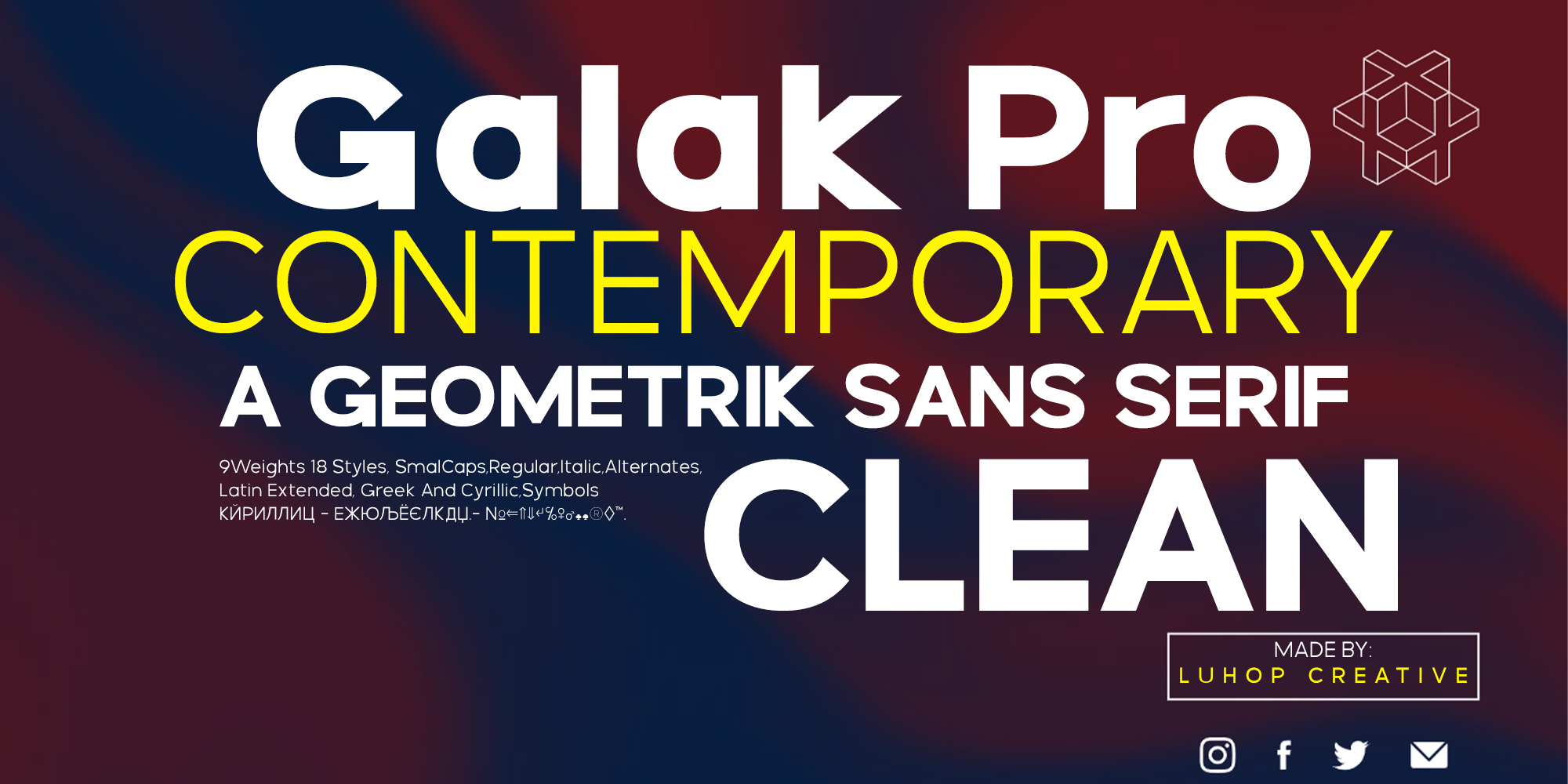
Galak Pro Font is ideal for professional corporate presentations, executive business communications, sophisticated financial reports, premium consulting materials, authoritative legal documents, high-end technology branding, influential leadership graphics, and distinguished institutional displays. Its professional authority makes it perfect for projects requiring corporate credibility and executive presence.
What makes Galak Pro Font exciting is its exceptional ability to command professional respect through meticulously engineered letterforms that embody corporate excellence and executive authority with uncompromising precision. The professional construction features refined geometry with business-grade reliability that captures the essence of corporate leadership and institutional trust. This typeface embodies professional mastery and executive confidence, making every design feel authoritatively credible and corporately distinguished.
Galak Pro Font family includes Regular, Bold, Light, Medium, Condensed, and Executive variations, providing designers with comprehensive tools for creating commanding professional typographic compositions that establish immediate corporate authority and business credibility.
Establish professional dominance with the executive authority of Galak Pro Font Free Download. This distinguished typeface brings corporate excellence to any business project, whether you're developing brand identities for Fortune 500 companies, crafting presentations for executive leadership, or designing materials for professional services. The font's business-grade architecture and executive presence make it essential for projects requiring corporate authority. Galak Pro Font perfectly captures the essence of professional leadership while ensuring optimal readability across all business applications. Its authoritative character forms and corporate-inspired design language make it ideal for organizations seeking to communicate executive excellence and institutional credibility, delivering memorable results that command respect and establish immediate professional authority with audiences who value business expertise, corporate integrity, and the distinguished presence that defines industry leadership.